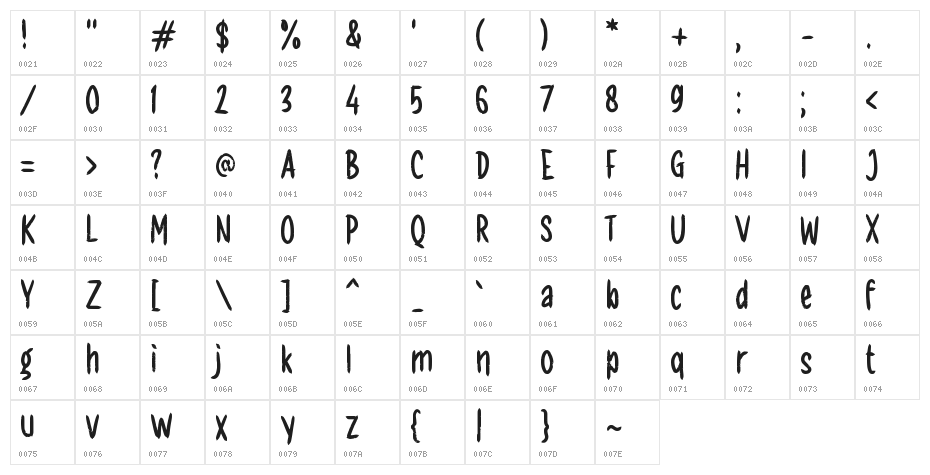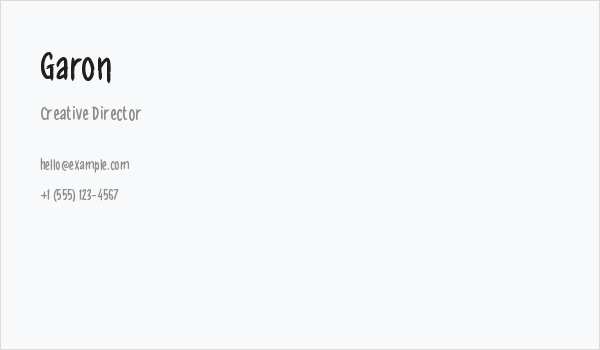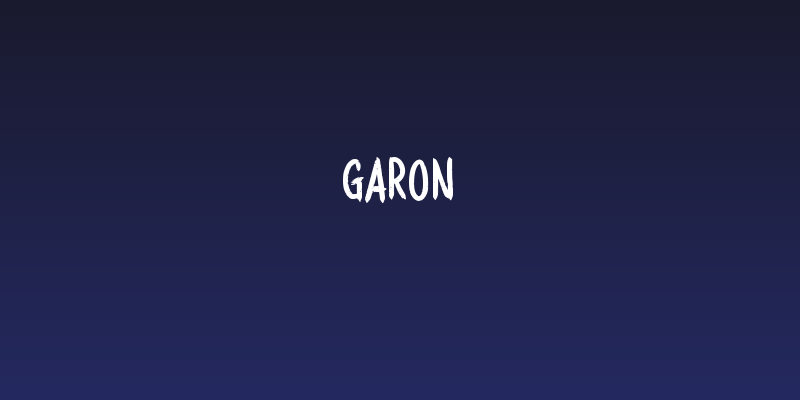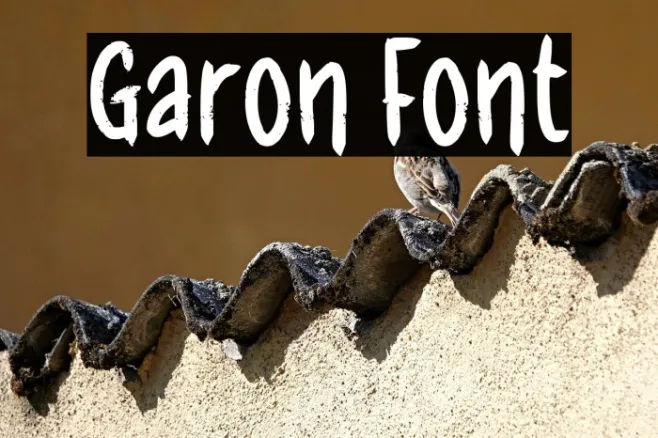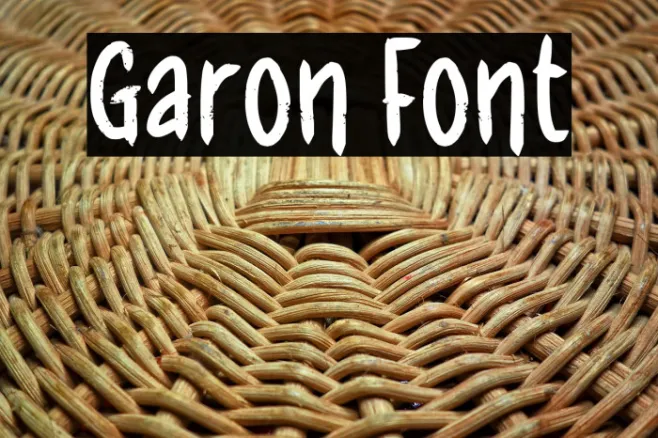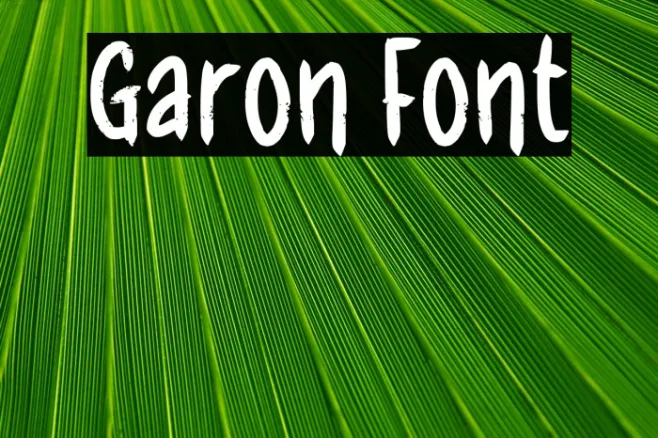
Garon Font
Garon Description
This font features a bold, hand-drawn style with a slightly distressed texture, giving it a rugged and artistic appearance. The uppercase and lowercase letters are crafted with a consistent stroke width, maintaining a uniform look. The numerals and special characters follow the same design aesthetic, ensuring cohesion across all characters. The font's playful yet edgy style makes it suitable for creative projects that require a touch of personality and flair. Its unique texture adds depth and interest, making it stand out in various design applications.
GARON UPPERCASE
GARON LOWERCASE
GARON OTHER CHARS